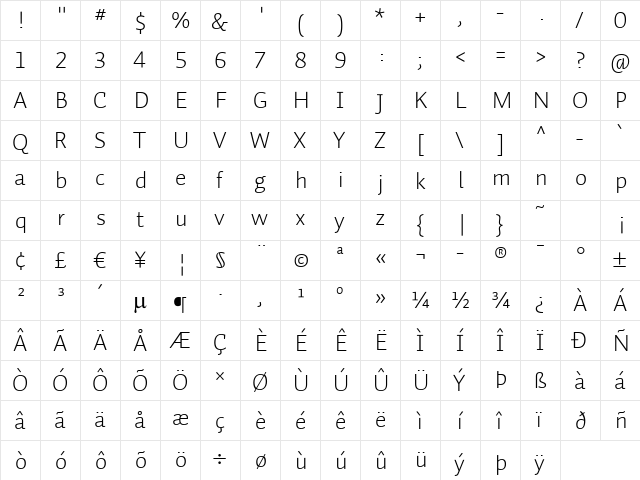
Auto 3 Light LF
Design Context for Auto 3 Typeface
Auto 3 offers clean, dependable letterforms without strong stylistic allegiance, making it a practical choice for designers who need flexibility. The delicate stroke weight brings airiness and refinement to layouts.
Pro Tip: Pair Auto 3 with a font of contrasting weight or personality to build a more expressive typographic hierarchy.